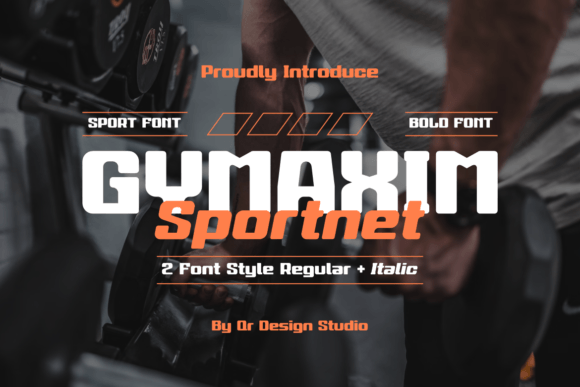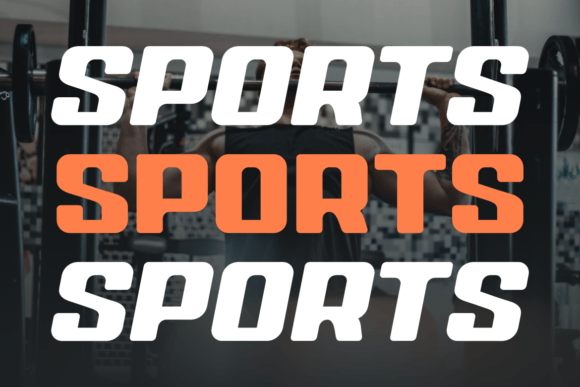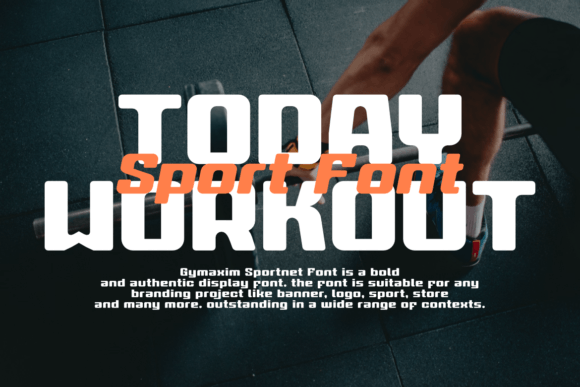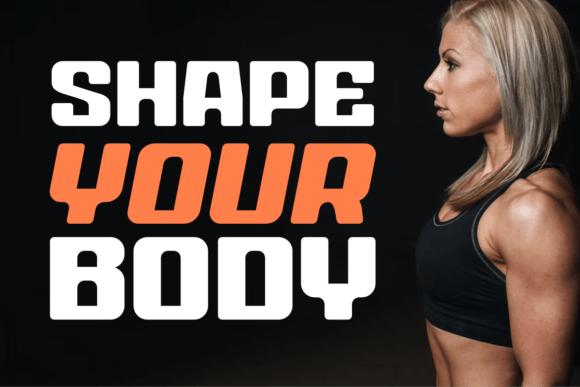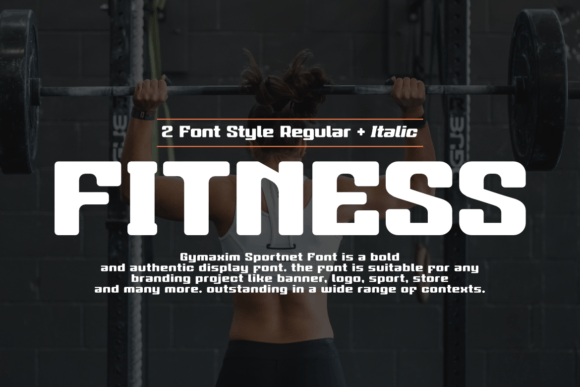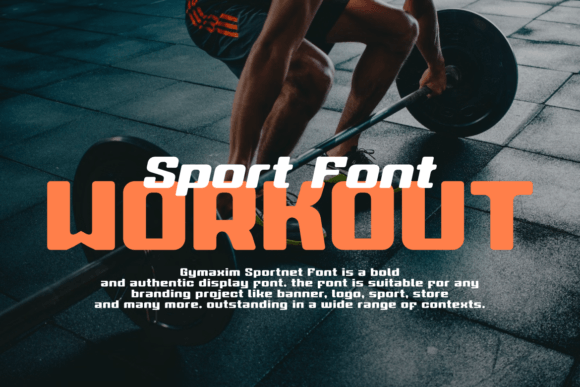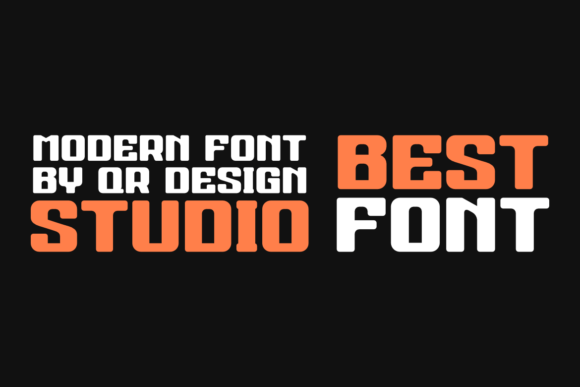
The Perfect Game-Changer for Your Designs: Gymaxim Sportnet Font
Have you ever stared at a blank page, desperately searching for the right font to bring your design to life? The frustration is real, but what if you stumbled upon a game-changer? A font that exudes confidence and authority, effortlessly elevating any creation to the next level.
Enter Gymaxim Sportnet Font, a bold and assertive sans serif font designed to make a lasting impact. Whether you’re crafting a sports brand, a fitness blog, or a motivational poster, Gymaxim Sportnet Font is the perfect addition to your toolkit. Its versatility and striking design make it an invaluable asset for designers, capable of taking any project to new heights.
Gymaxim Sportnet Font Key Features
- Font Family: Gymimax Sportnet Font is a modern sans-serif font designed for sports and fitness-related applications.
- Character Count: The font family includes 256 characters, including uppercase and lowercase letters, numbers, and punctuation marks.
- Unique Characteristics: The font features a unique blend of modern and sporty elements, with a bold and dynamic feel that is perfect for sports-related branding and advertising.
Gymaxim Sportnet Font Review
Gymaxim Sportnet Font is a visually striking and modern sans-serif font designed for sports-related projects. I was initially drawn to its unique and energetic vibe, which makes it perfect for capturing the excitement of the sports world. ✨ The font’s clean lines and geometric shapes create a sense of dynamism and movement, which is ideal for sports branding and marketing materials.
Here are some of the key features that I think work well for Gymimax Sportnet Font:
- ✨ Unique and energetic vibe
- ✨ Perfect for sports-related projects
- ✨ Clean lines and geometric shapes
- ✨ Suitable for various sports branding and marketing materials
However, I do have some concerns about the font’s limitations:
- ⚠️ Limited font weights and styles
- ⚠️ May not be suitable for more formal or traditional sports branding
- ⚠️ May require additional styling to achieve desired look and feel
Overall, I think Gymimax Sportnet Font is a great choice for sports-related projects that require a modern and energetic vibe. While it may have some limitations, I believe it can be a valuable addition to any sports brand’s design arsenal.
Tips for Getting the Most Out of Gymimax Sportnet Font
To get the most out of the Gymimax Sportnet Font, use it in conjunction with bold or italic styles to create emphasis. You can also use it in combination with other fonts to create a visually appealing font pairing.
The Gymimax Sportnet Font is ideal for sports-related designs, such as jerseys, posters, and social media graphics. It’s also suitable for use in fitness and wellness branding.
Alternatives to Gymaxim Sportnet Font
Open Sans is a modern sans-serif font that is highly legible and versatile. It is suitable for use in digital media, such as websites and mobile apps, as well as in print materials. Open Sans is a great alternative to Gymaxim Sportnet Font because it offers a similar clean and minimalist aesthetic, but with a more neutral tone.
Comparison: Gymaxim Sportnet Font is more stylized and bold, while Open Sans is more straightforward and easy to read. Open Sans is a better choice when you want a font that is more neutral and won’t distract from the content.
Montserrat is a sans-serif font that is inspired by the urban environment of Buenos Aires. It is a great choice for use in digital media, particularly in headings and titles, due to its bold and modern aesthetic. Montserrat is a good alternative to Gymaxim Sportnet Font because it offers a similar sense of urbanity and modernity, but with a more rugged and edgy feel.